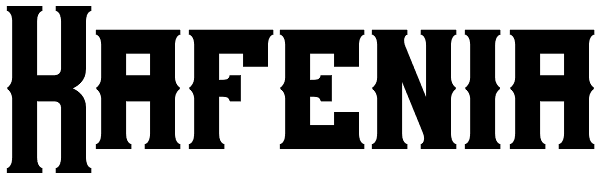
Kafenia
Kafenia is a geometric display typeface, consisting of capitals and small capitals only. Inspired by the combination of vintage and decorative aesthetics with squarish and compact look, Kafenia claims to be a classy and old stylish slab serif. With...